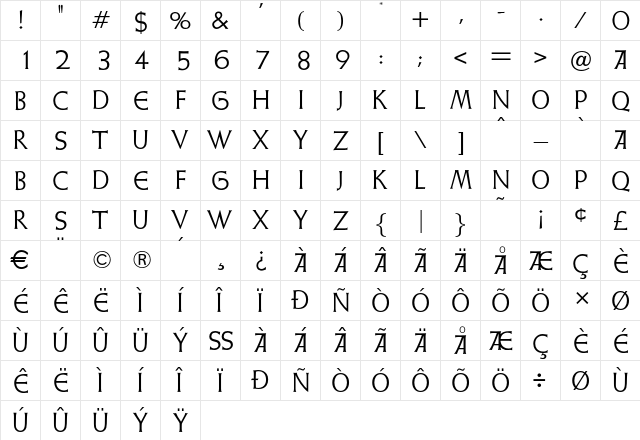
Weiss Initialen Alternates Regular
Design Context for Weiss Initialen Alternates Typeface
Weiss Initialen Alternates offers clean, dependable letterforms without strong stylistic allegiance, making it a practical choice for designers who need flexibility.